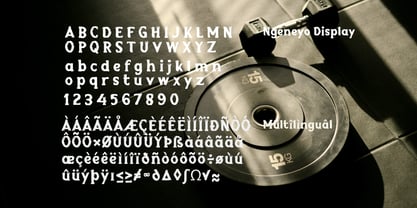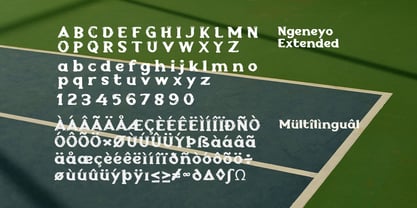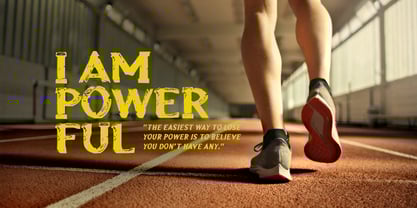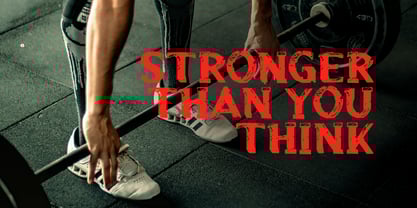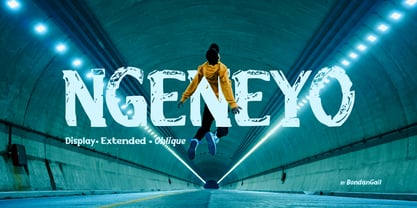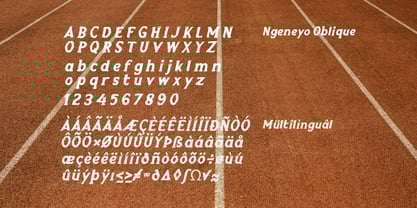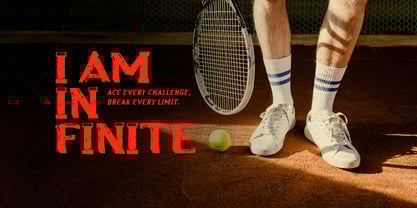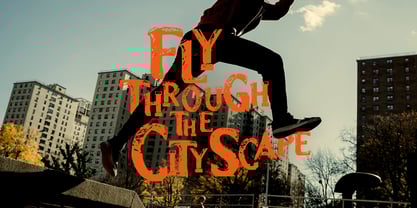
Ngeneyo
The Ngeneyo Font Family was designed by Wahyu Eka Prasetya, Bondan Gail Saputro and published by BondanGail. Ngeneyo contains 3 styles and family package options.
Ngeneyo is a powerhouse typeface built for dynamic sports visuals. With its bold, extended letterforms and rugged, distressed texture, this font captures the energy of motion, speed, and strength.
The slight oblique slant adds a sense of forward momentum, making it perfect for sports branding, action-packed posters, and adrenaline-fueled campaigns.
Whether it’s for extreme sports, urban athletics, or high-impact event graphics, Ngeneyo delivers a raw, competitive edge that keeps the game moving.
Ngeneyo includes :
• 3 style typefaces (Display, Extended and Oblique)
• Uppercase, Lowercase, Numeral, Symbol and Punctuation
• Multilingual